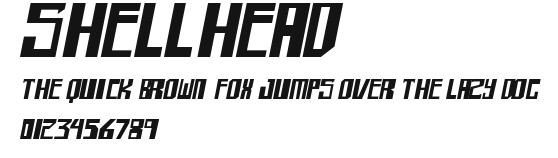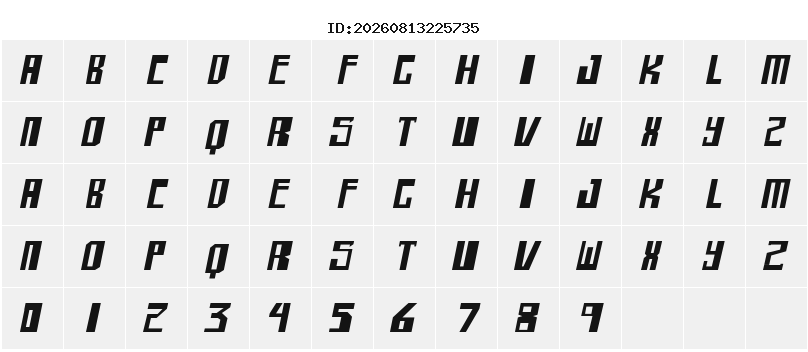
shellhead Preview
• Font Name: shellhead
• Font Style: Gras Italique
• Font ID: shellhead Bold Italic:Version 1.00
• Full Font Name: shellhead Bold Italic
• Version: Version 1.00 October 24, 2006, initial release
• PostScript Name: shellhead-BoldItalic
About shellhead.ttf
shellhead.ttf is a modern, elegant sans-serif font designed for ultimate readability and visual harmony. Perfect for branding, headlines, web design, and print materials.